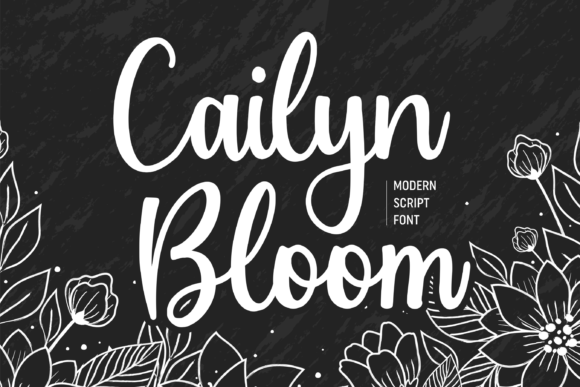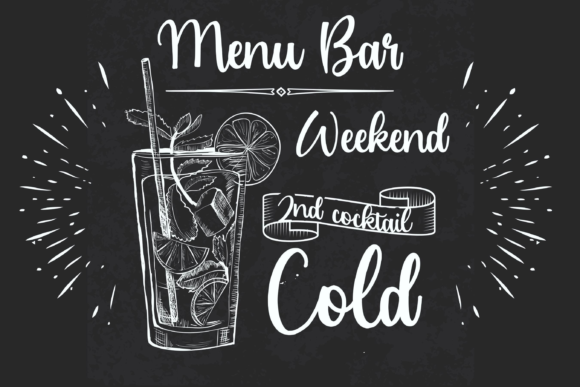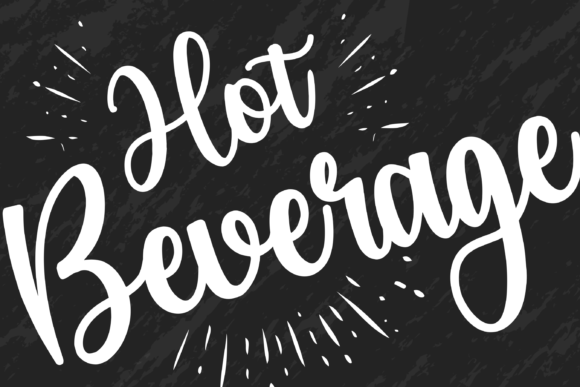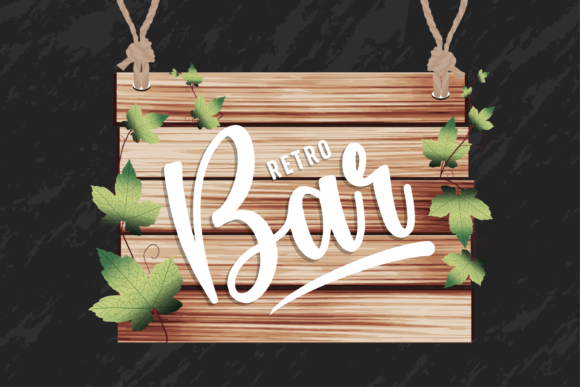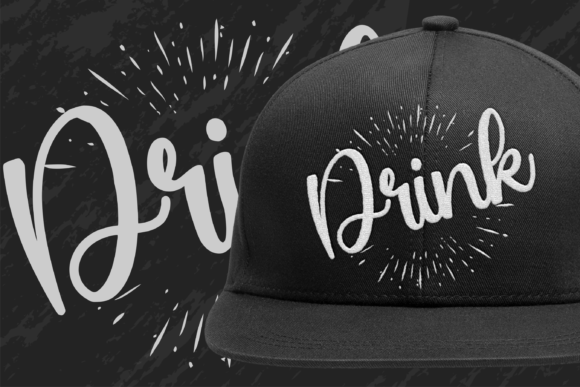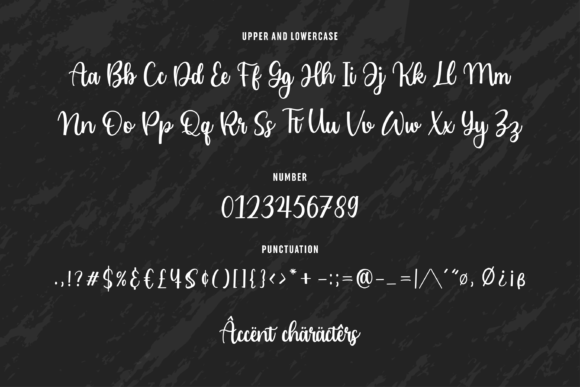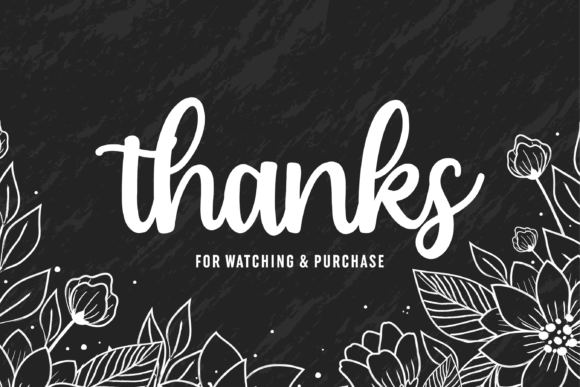
Cailyn Bloom Font
About Cailyn Bloom Font
Cailyn Bloom is a magical script font carefully created with a touch of elegance. It features an incredibly classic style, while still keeping a friendly feel. This font is the perfect font for making original and outstanding designs.